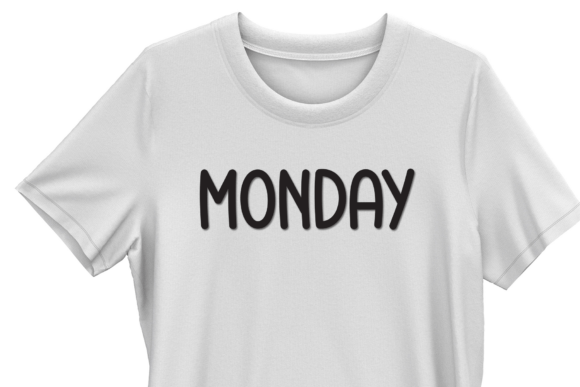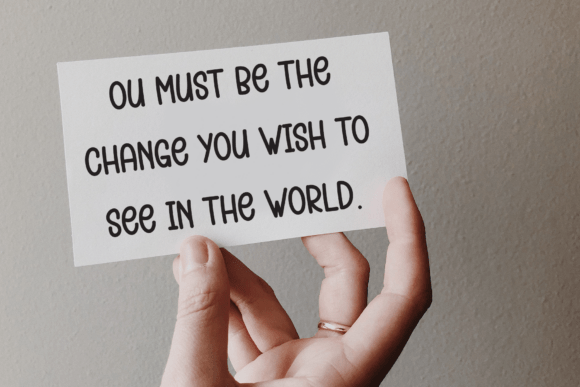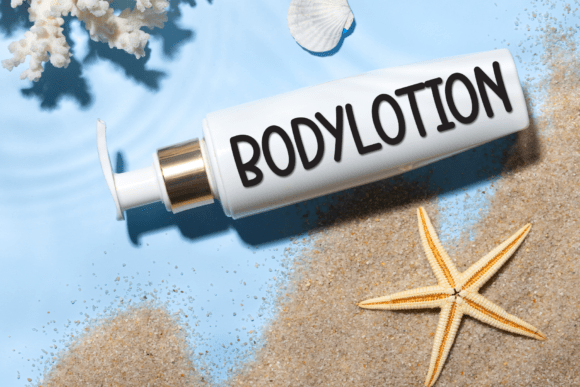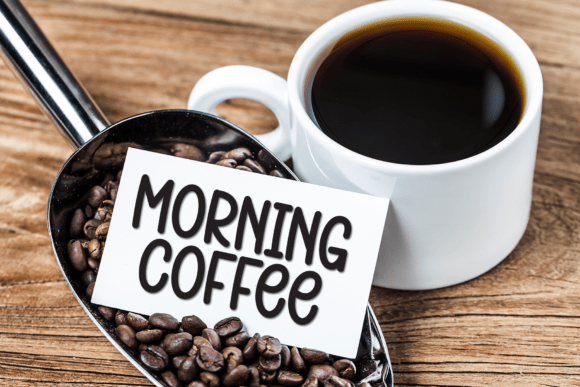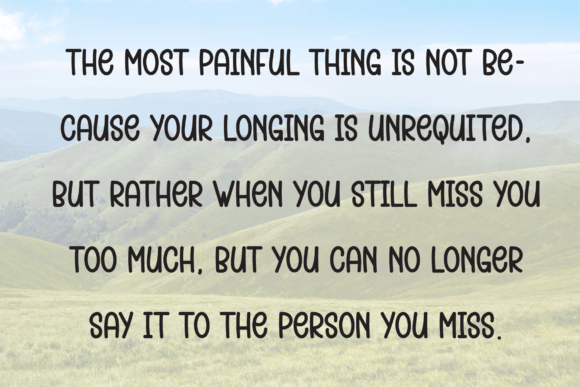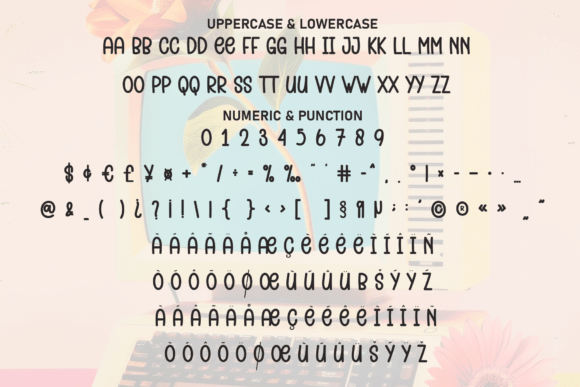
Introducing Digital Vintage Font: The Sweetest Addition to Your Design Projects
Have you ever been in the middle of working on a design project, and suddenly, you’re stuck on finding the perfect font? I recall a recent experience where I was designing a wedding invitation for a client, and I just couldn’t find a font that captured the sweet, playful vibe they wanted. That’s when I stumbled upon Digital Vintage Font, and let me tell you, it was love at first sight! 💕
This charmingly sweet and sociable handwritten display font has been a game-changer for my design projects, and I’m excited to share its magic with you. Digital Vintage Font injects an element of delight into your creative projects, making it perfect for wedding invitations, cards, and any design work that needs a light-hearted touch.
A Loveable Typeface with Endearing Quirks
Digital Vintage Font is ripe with endearing quirks and playful charm, making it an instant favorite for designers, crafters, and creative hobbyists. Its whimsical appeal lends a kind aura to any design work, weaving stories with its every stroke. Whether you’re looking to encapsulate joy, warmth, and a sense of fun into your creations, this font is sure to deliver.
Here are some of the things I love about Digital Vintage Font:
- ✨ Unique and playful character set
- ✅ Easy to read and understand
- 💕 Perfect for wedding invitations, cards, and other design projects that require a touch of whimsy
- 🎉 Highly versatile and adaptable to different design styles
While Digital Vintage Font has stolen my heart, it’s not without its quirks. Here are a few things to consider:
- 🤔 Limited use of uppercase letters (but that’s part of its charm, right?)
- ⚠️ May not be suitable for body text or long-form content (it’s best used for headings and titles)
Digital Vintage Font was inspired by the classic typography of the past, with a modern twist. Its designer aimed to create a font that’s both nostalgic and fresh, perfect for designers who want to add a touch of whimsy to their projects.
- Q: Is Digital Vintage Font suitable for body text?
- A: No, Digital Vintage Font is best used for headings and titles. It’s not suitable for body text or long-form content.